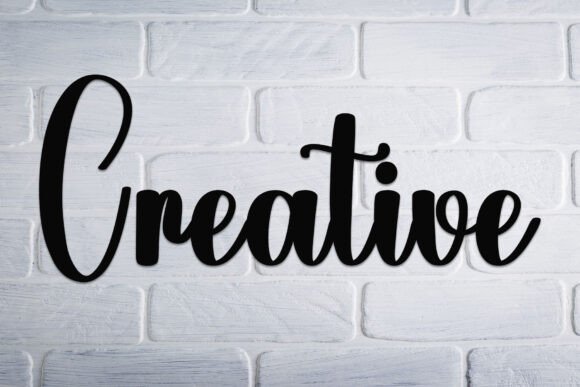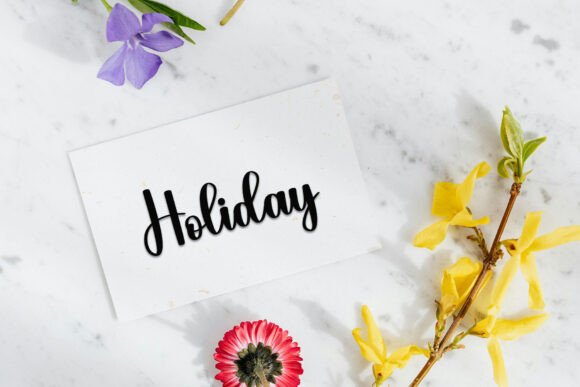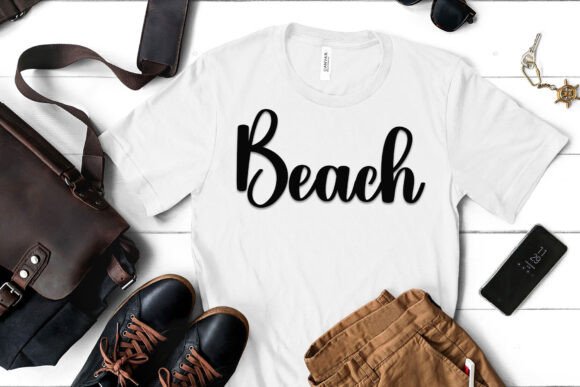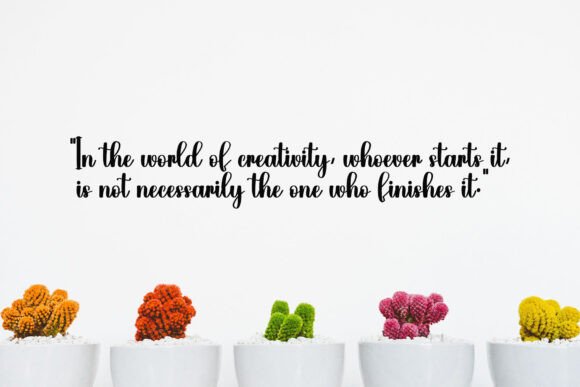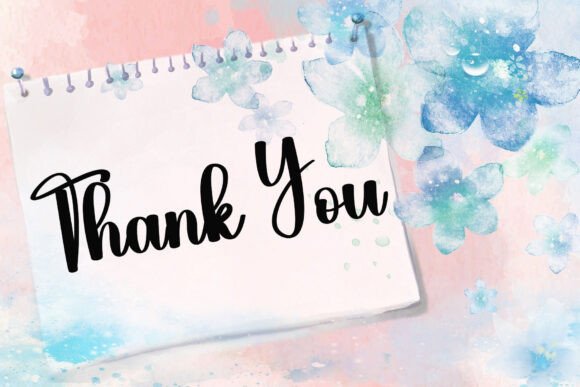
Introducing Derby Font: Elevate Your Designs with Timeless Elegance
In the world of typography, fonts play a crucial role in conveying the tone and personality of a design. For designers and crafters seeking to add a touch of sophistication and elegance to their projects, the Derby Font is an excellent choice. This trendy handwritten font boasts a contemporary atmosphere and impeccable form, drawing inspiration from timeless classic calligraphy.
The Essence of Derby Font
Derby Font is a beautiful, handcrafted typeface that exudes refinement and poise. Its unique blend of traditional and modern elements makes it an ideal choice for a wide range of design applications, from luxury branding and advertising to packaging and digital media. With its elegant strokes and precise letterforms, Derby Font is sure to elevate your designs to new heights.
Key Features of Derby Font
- Trendy and Contemporary: Derby Font features a fresh and modern design that will add a touch of sophistication to your projects.
- Handwritten with Love: Each letterform has been carefully crafted by hand, giving the font a personal and unique feel.
- Inspired by Classic Calligraphy: Derby Font draws inspiration from traditional calligraphy, adding a touch of timeless elegance to your designs.
- Impeccable Form: The font features precise letterforms and elegant strokes, ensuring a high level of readability and aesthetic appeal.
- Versatile: Derby Font is suitable for a wide range of design applications, from print to digital media.
Why Choose Derby Font?
With so many fonts available, why choose Derby Font for your design projects? Here are just a few reasons:
- Stand Out from the Crowd: Derby Font’s unique design ensures that your projects will stand out from the competition.
- Elegance and Sophistication: The font’s elegant strokes and precise letterforms add a touch of luxury and sophistication to your designs.
- Easy to Read: Derby Font features clear and precise letterforms, making it easy to read and understand.
- Time-Saving: With Derby Font, you can create stunning designs in a fraction of the time it would take to create a custom font.
Using Derby Font in Your Designs
Derby Font is incredibly versatile and can be used in a wide range of design applications. Here are a few ideas to get you started:
- Branding and Logo Design: Use Derby Font to create a luxurious and sophisticated brand identity.
- Advertising and Marketing: Add a touch of elegance to your ad campaigns and marketing materials.
- Packaging Design: Use Derby Font to create stunning packaging designs that stand out on store shelves.
- Digital Media: Derby Font is perfect for use in digital media, including social media graphics, email marketing, and more.
In conclusion, Derby Font is an exceptional choice for designers and crafters seeking to add a touch of elegance and sophistication to their projects. With its trendy and contemporary design, impeccable form, and timeless classic calligraphy inspiration, Derby Font is sure to elevate your designs to new heights. Whether you’re working on a luxury branding project or a digital media campaign, Derby Font is the perfect choice.